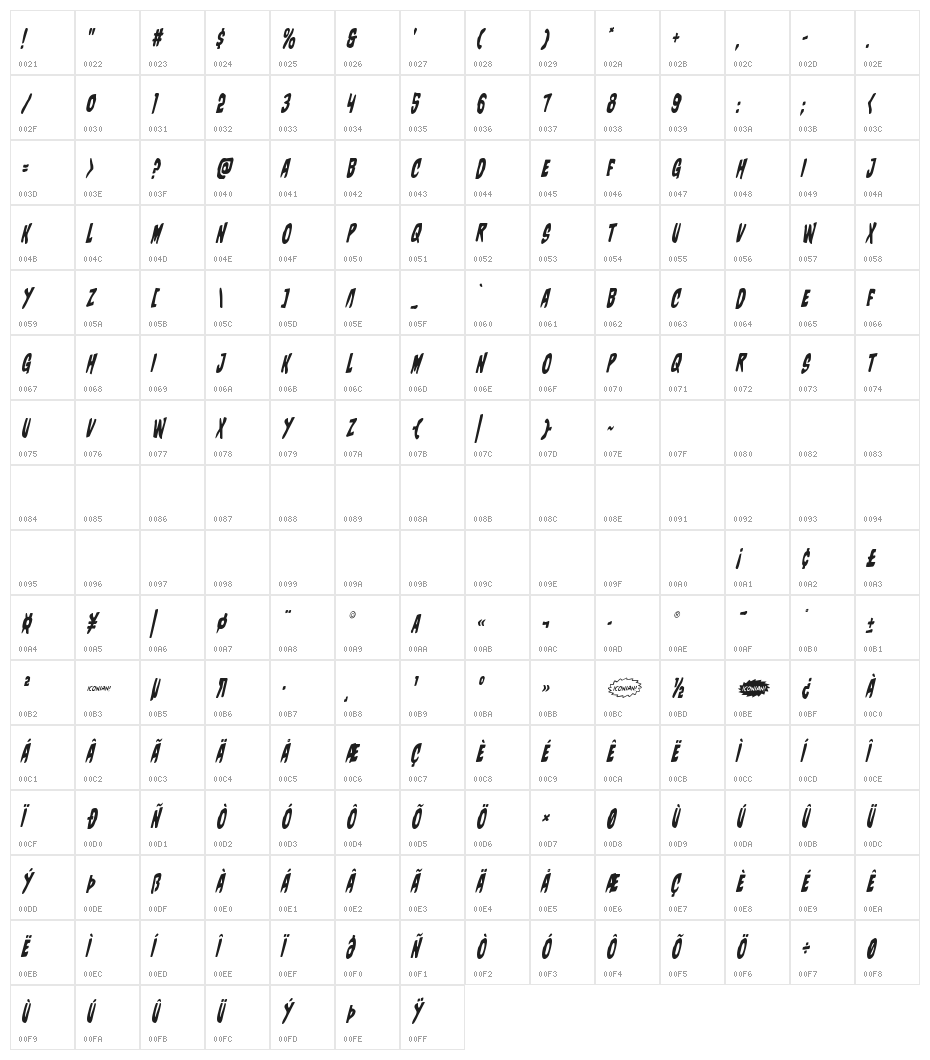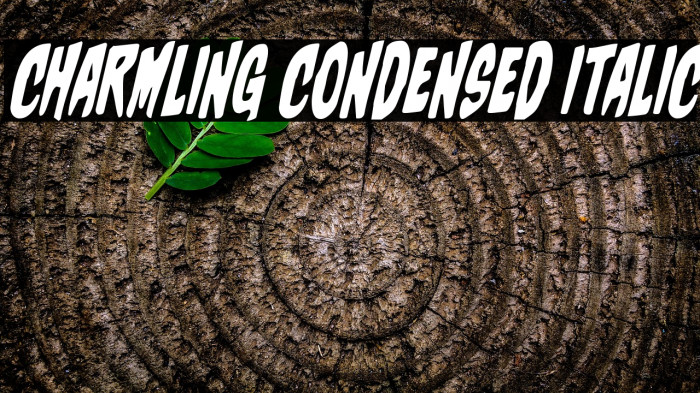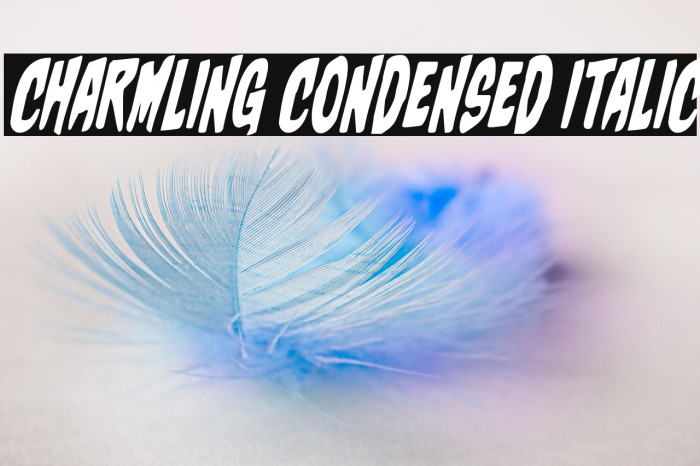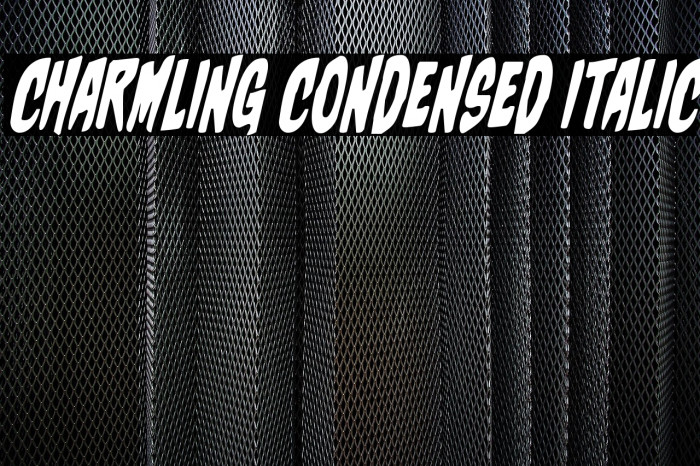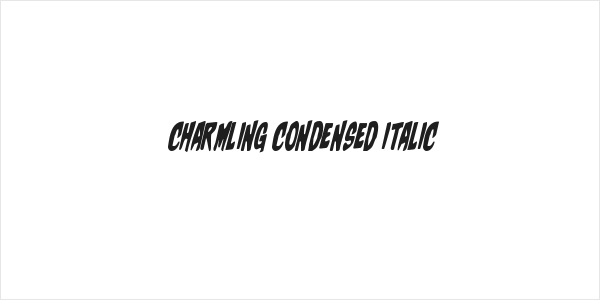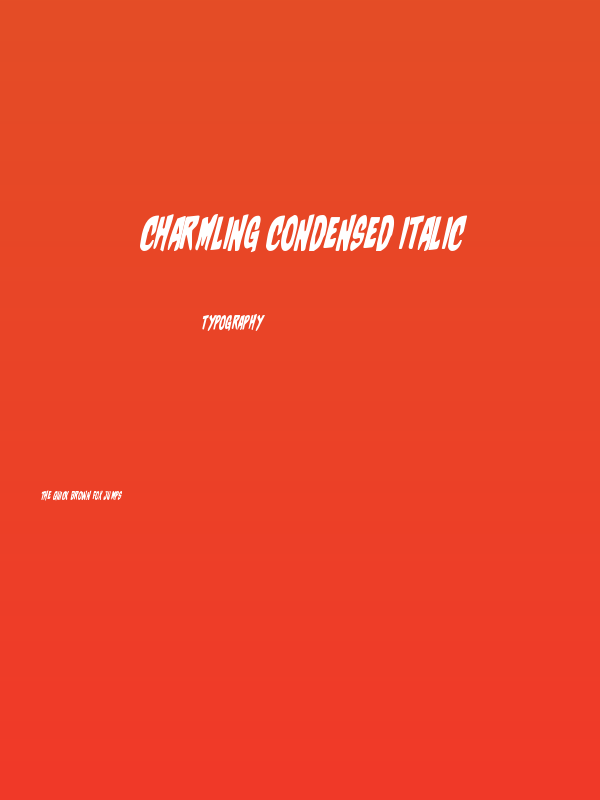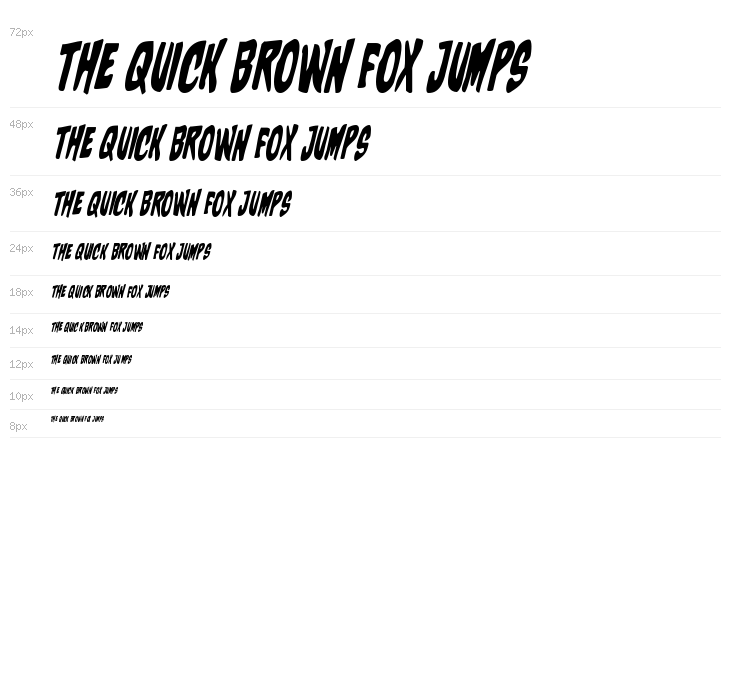
Charmling Condensed Italic Font
Charmling Condensed Italic Description
This font features a bold and dynamic style with a condensed and italicized form. The characters are closely spaced, creating a sense of urgency and movement. The strokes are thick and consistent, providing a strong visual impact. The uppercase and lowercase letters maintain a cohesive look, while the numerals and special characters are designed to complement the overall aesthetic. This font is ideal for projects that require a bold statement and a modern touch.